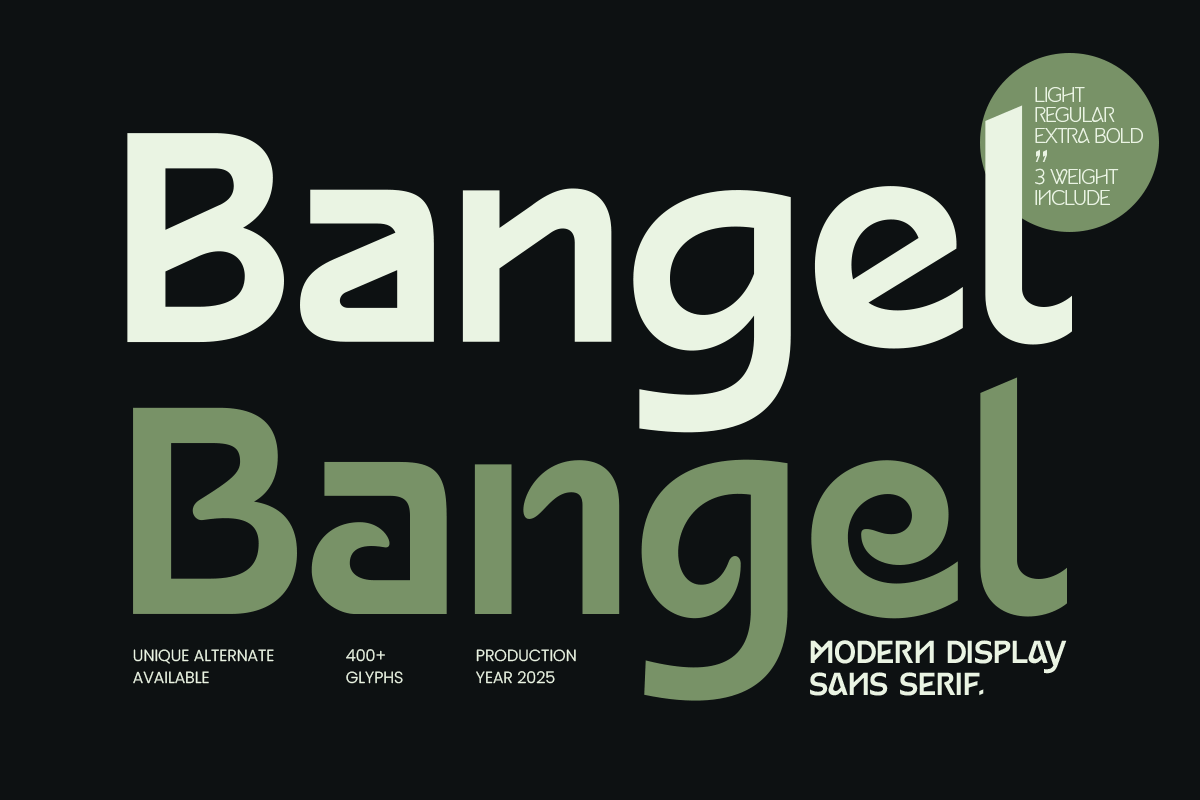
Bangel
-Minimal Modern Font
Minimal Modern Font - Bangel
BANGEL is a minimal modern font crafted for clean, professional, and contemporary design projects. Ideal for branding, logos, packaging, posters, and digital interfaces, it combines simplicity with sophistication for a timeless appeal.
With balanced letterforms and refined proportions, BANGEL ensures readability while maintaining a modern, elegant aesthetic suitable for both digital and print applications.
BANGEL – Minimal Modern Font Features
• Clean and minimal modern character set
• Available with 3 weights: Light, Regular and Bold
• Perfect for branding, logos, and editorial designs
• OpenType features for extra versatility
Bring timeless simplicity to your projects with BANGEL – the ultimate minimal modern font for clean designs. ✨